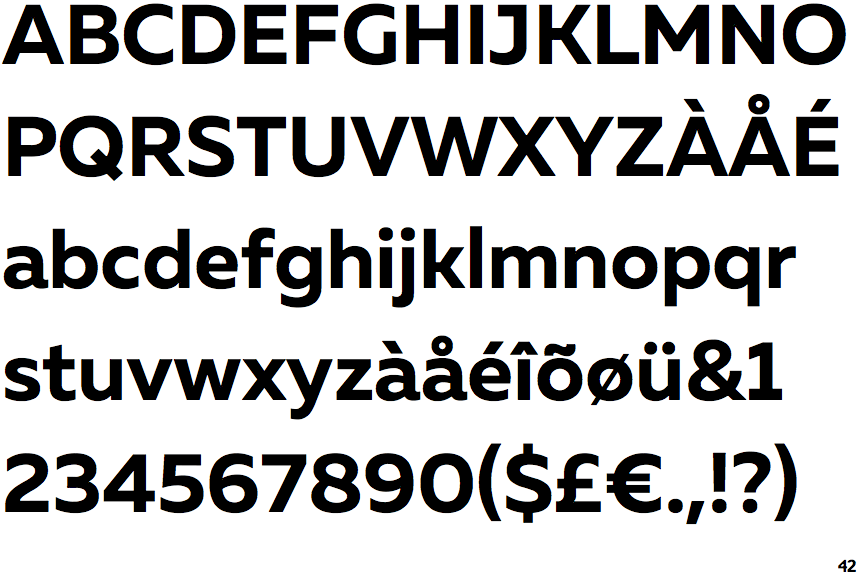
Is Avenir A Common Font
Is Avenir A Common Font. Both products support the most common western and central european languages (more than the std character set which only supports western europe). Apart from this font, he is known for creating universe and frutiger fonts.
This change bumped the family up to a whopping 28 fonts. Nunito is also another alternative to this font that are very similar features to the avenir next font. The trick to success is to know every little trick.
Avenir is the 21st most used web font on the web. This font was published in 1988 by the linotype foundry. This font created by adrian frutiger.
The Lettershapes Of The Two Products Are The Same.
Avenir next font is available as a free for personal use fonts that are equipped starting from uppercase, lowercase, numeric, and some special character and alternates. This font style is compatible with both big and small display sizes. The light and thin weights of the normal width were added in a later version, called avenir next w1g.
Avenir is a sans serif typeface in the tradition of geometric type styles. Similar popular professional fonts are futura, museo, bebas neue, dotum. Originally designed by vernon adams, then later expanded to include more weights by jacques le bailly.
The Designer Of This Amazing Font Is A Famous Swiss Designer Adrian Frutiger.
Although classified as a geometric typeface, avenir (which means ‘future’ in french) has some humanist features which bring warmth and openness to the typeface. Avenir next pro is the revamp of adrian frutiger\’s well known avenir sans serif type family. The textual style family was expanded.